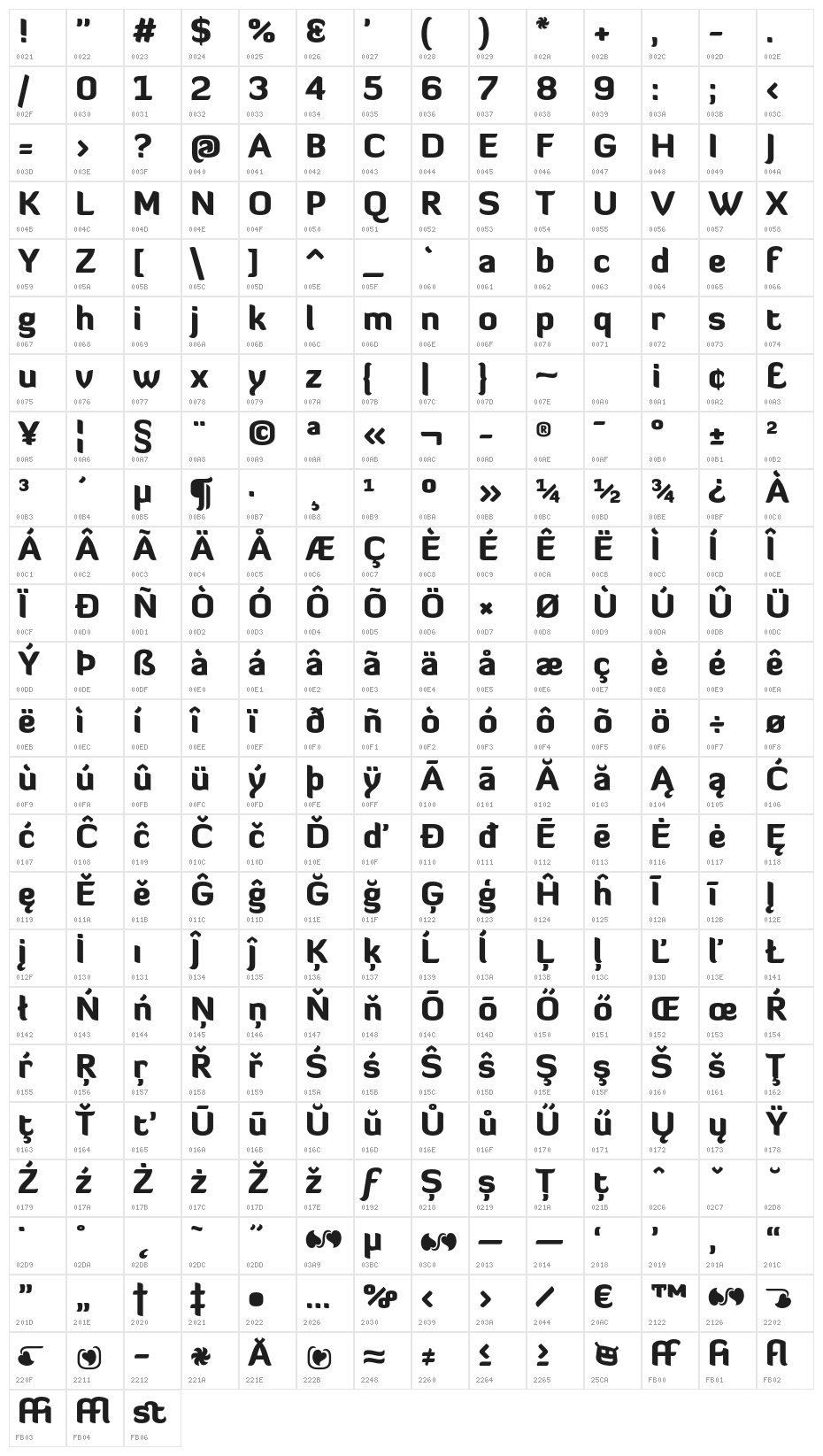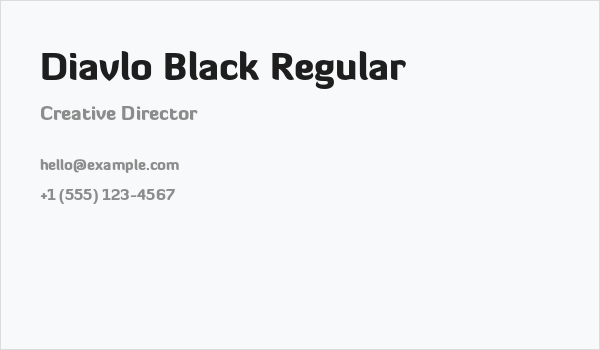
Diavlo Black Regular Font
Diavlo Black Regular Description
This font features a bold and modern design with a strong presence. The characters are well-defined with a slightly condensed appearance, giving it a compact and impactful look. The strokes are consistent in thickness, providing a uniform and cohesive style. The uppercase letters are robust and commanding, while the lowercase letters maintain a friendly and approachable feel. The numerals are clear and easy to read, making them suitable for various applications. Special characters are distinct and well-integrated, adding versatility to the font's use. Overall, this font combines modern aesthetics with a touch of playfulness, making it suitable for a wide range of design projects.
Proposed ProjectsIdeal for branding, headlines, posters, and digital media where a strong visual impact is needed.